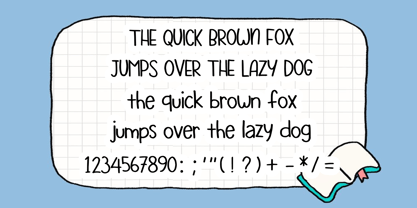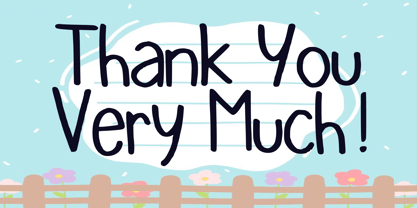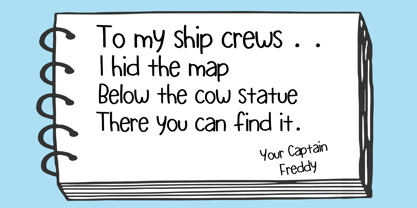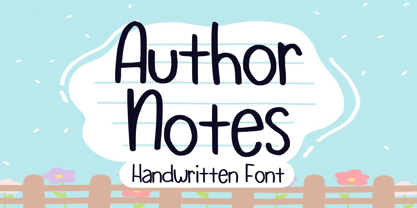
Author Notes
por Mvmet
La familia tipográfica Author Notes fue diseñada por Gabriel Valentinus y publicada por Mvmet. Author Notes contiene 1 estilos. Más información sobre esta familia
Author Notes is a versatile daily font and suitable for everyday use. It will elevate a wide range of design projects to the highest level. You can use this font for many design ideas such as stickers, t-shirt designs, amazing logo designs, magazine or book covers, comics, cartoon drawings, and many more. This font will add a super cool touch to your designs!
Diseñadores: Gabriel Valentinus
Fundición actual: Mvmet